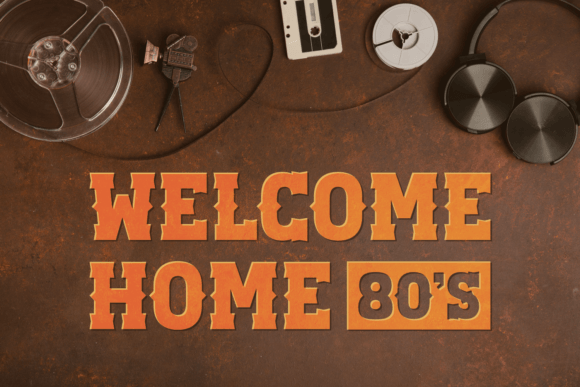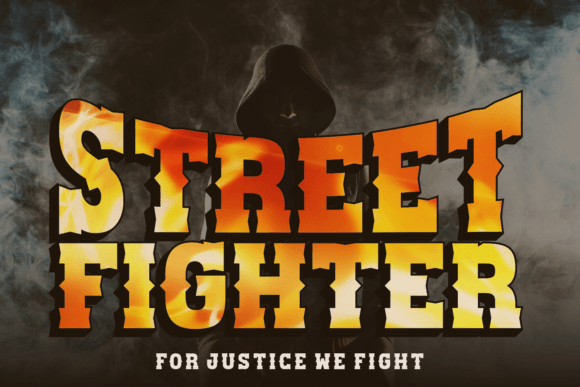
Cowboy Major Font
Stepping straight out of the grand era of the Wild West, Cowboy Major is a fearless black-letter font that graces designs with irresistible charm and robust beauty. Resembling iconic western slab serif, this font captures the heart of the cowboy country epoch. Its bold character is an excellent choice for producing a retro or vintage aesthetic, truly enlivening movie posters, headlines, and hero projects with distinctive charisma. Immerse your designs in the spirit of the Wild West with Cowboy Major, offering an authentic touch to your adventurous creations.